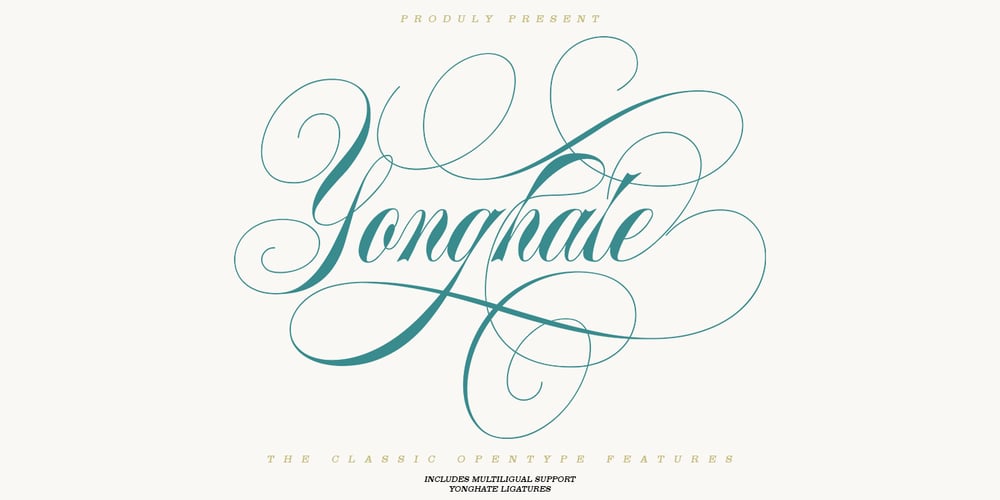
Yonghate Font Family was designed by M Irvan Syouqi S and published by IRF Lab Studio. Yonghate contains 1 styles and family package options. Yonghate is a Calligraphy typeface with personality. You can use it as a logo, badge, insignia, packaging, headlines, posters, t-shirts / apparel, greeting cards, and wedding invitations. Flowing characters are ideal for crafting a catchy message, mix and match Yonghate with lots of alternative characters to suit your project.Alternative characters in this font are divided into several OpenType features such as Stylistic Alternates, Stylistic Sets, and Ligature. OpenType features can be accessed using OpenType programs such as Adobe Illustrator, Adobe Photoshop, and Adobe InDesign.There he is! I really hope you enjoy it – let me know what you think. More importantly, feel free to message me if you have any problems or questions.Email support: irflabstudio@gmail.com